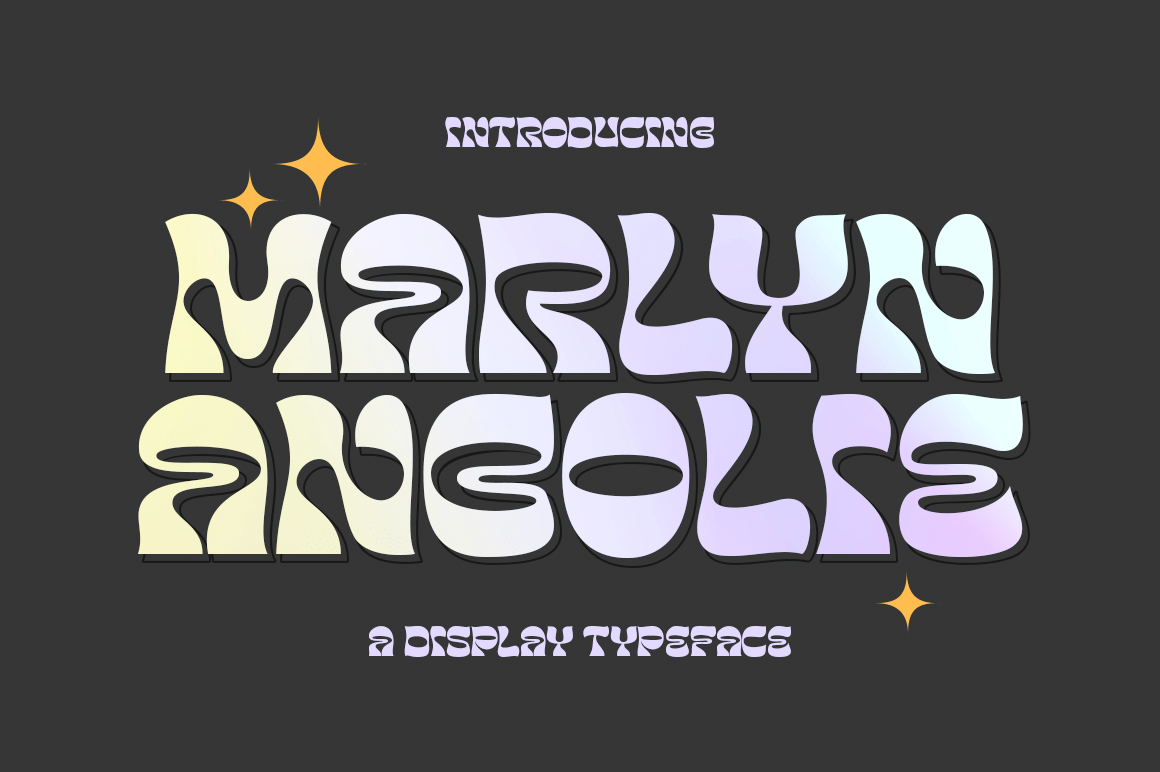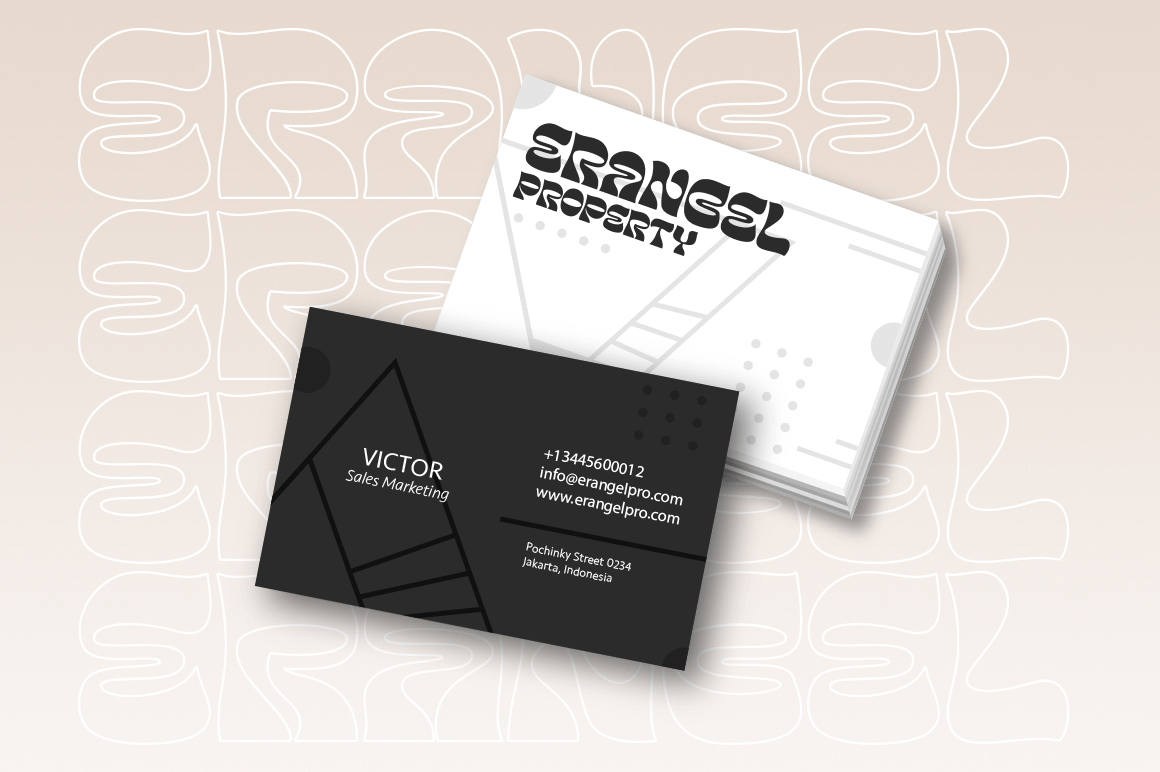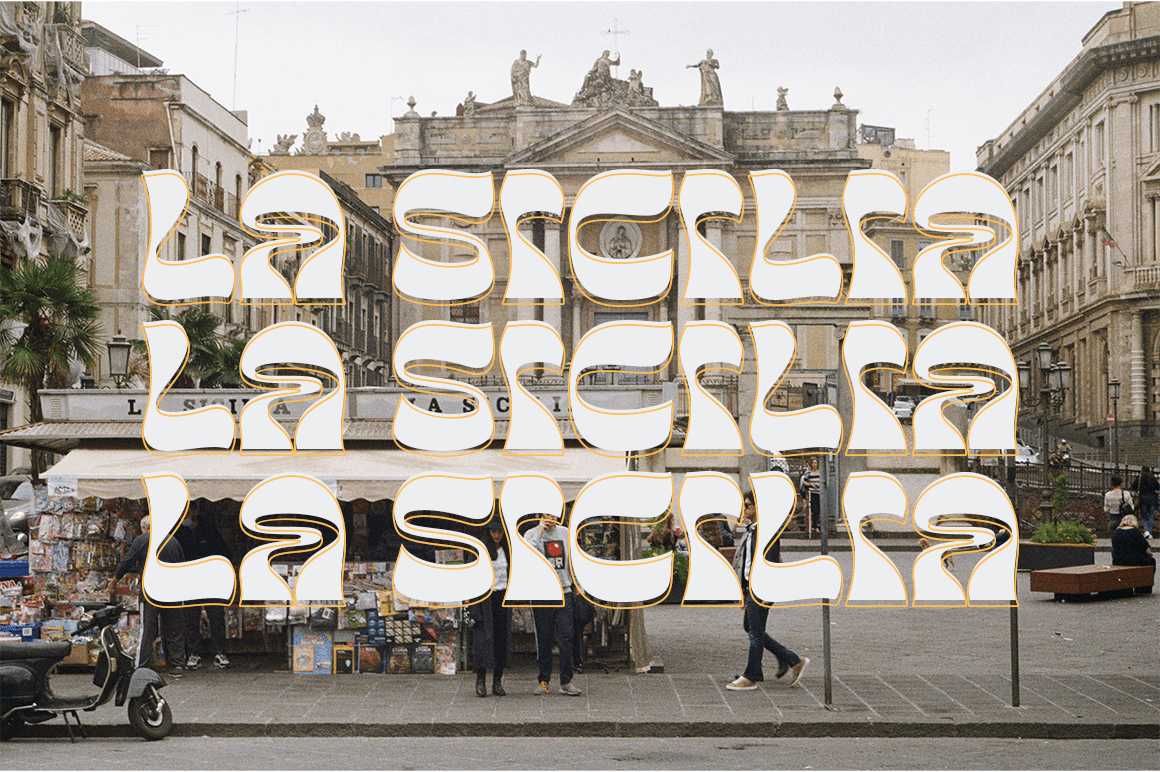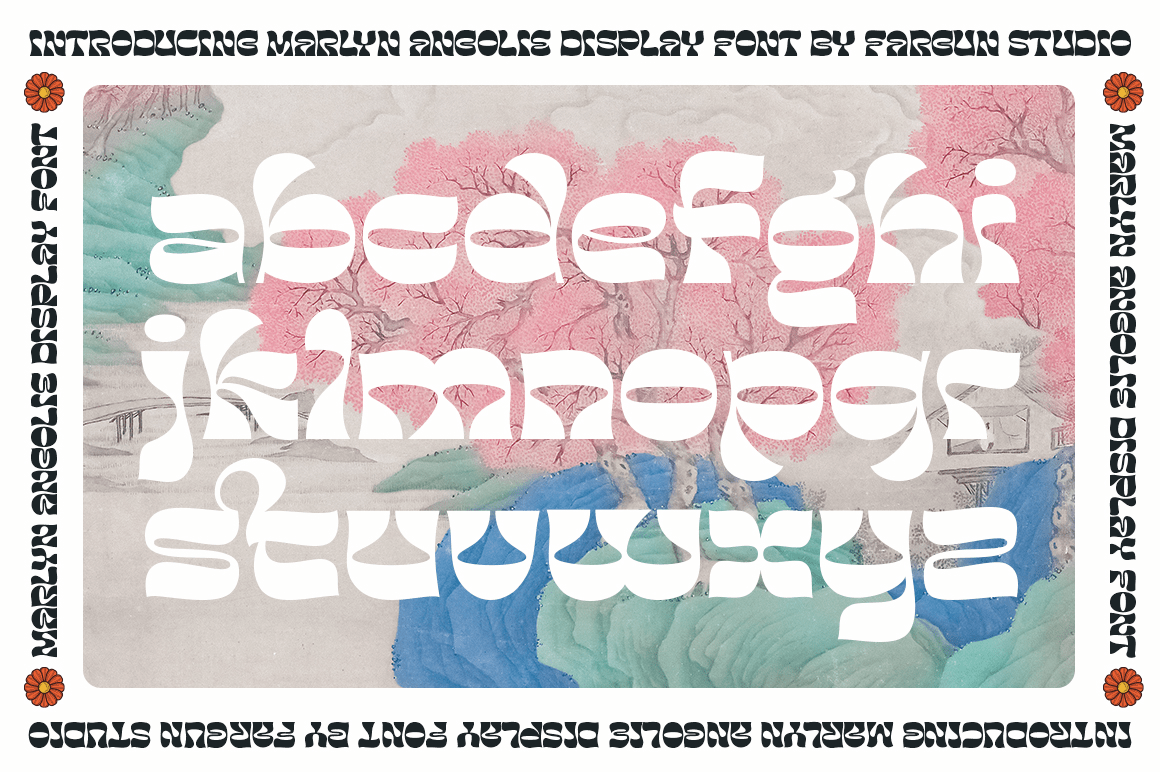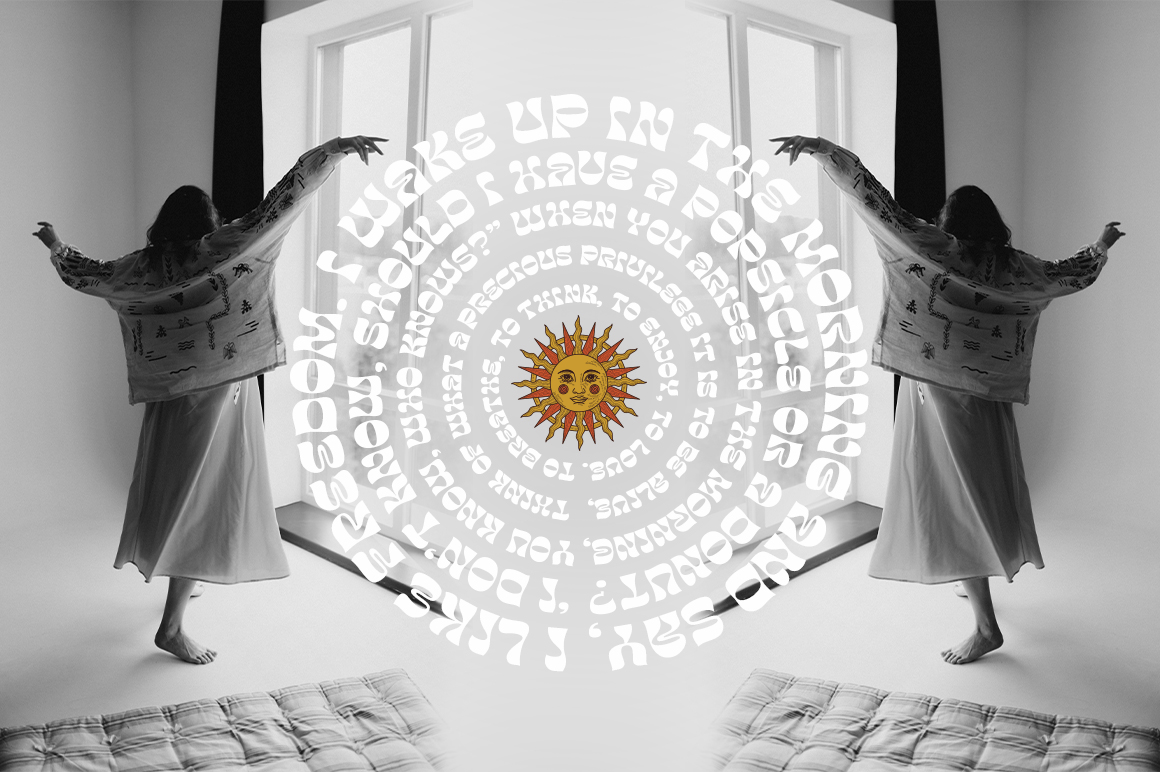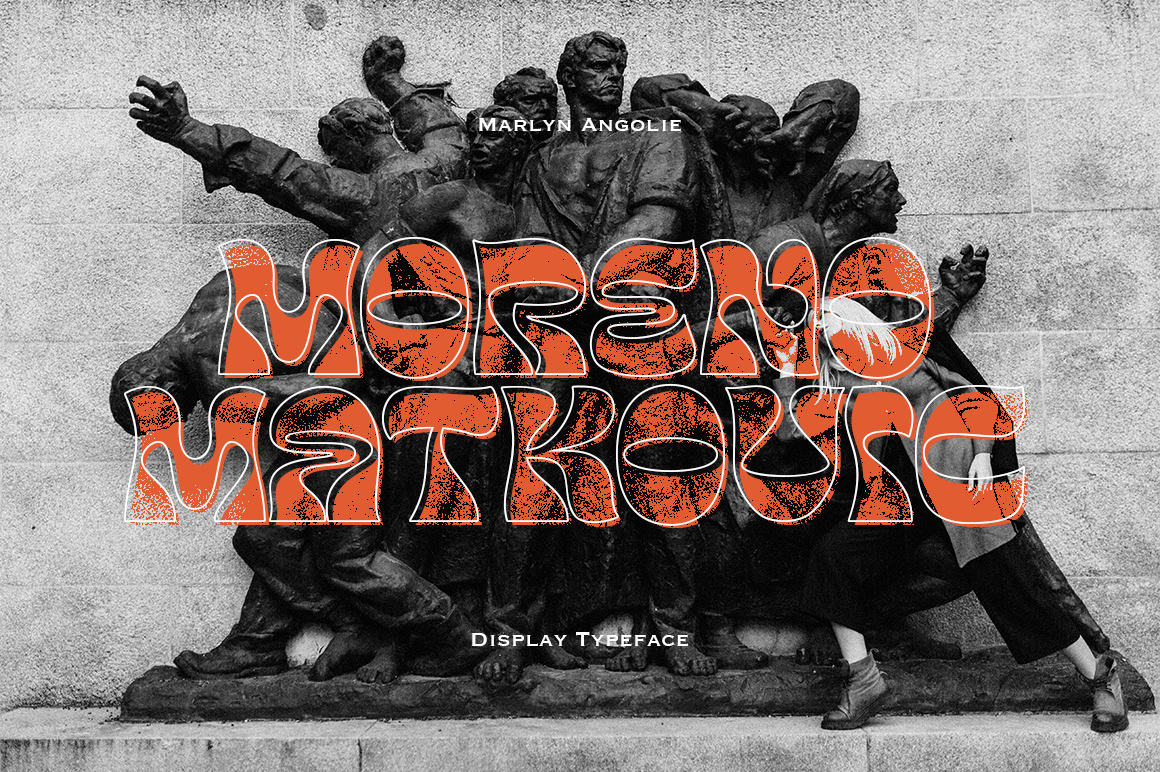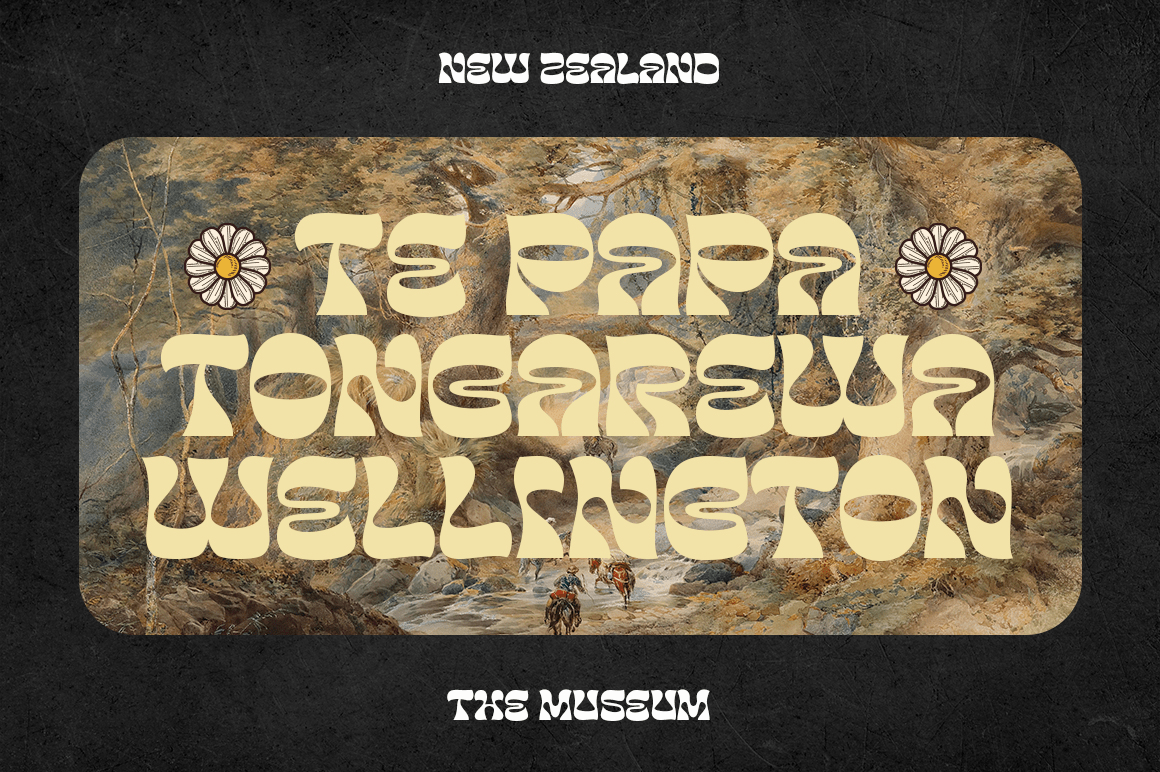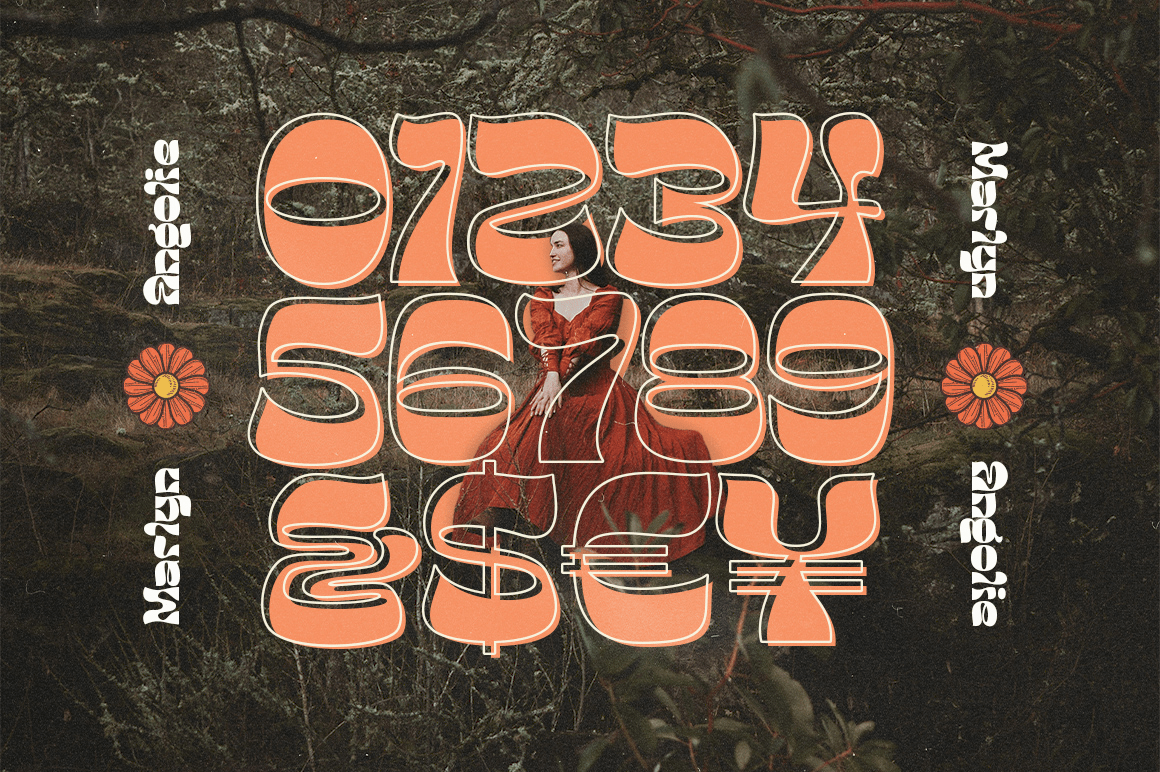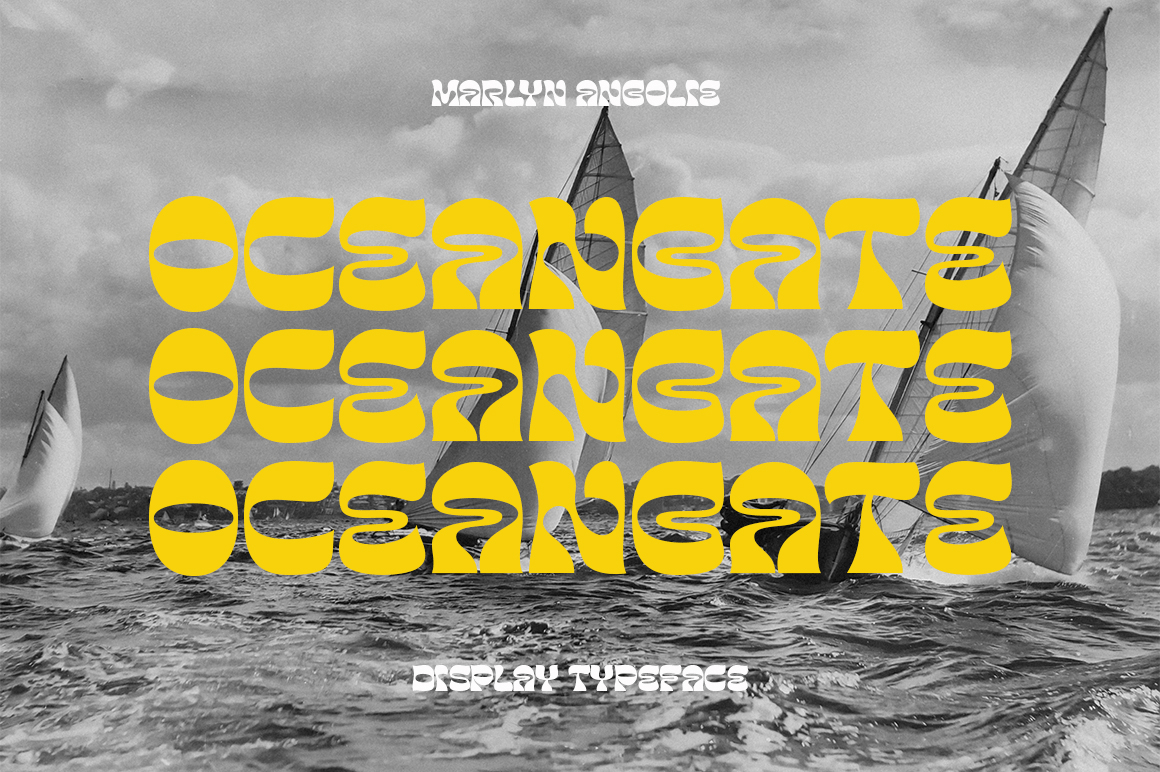
Marlyn Angolie
Font Family by Fargun Studio
Marlyn Angolie is a distinctive display typeface with a psychedelic and retro style: perfect for logos, brand identity and modern typographic designs for your project.